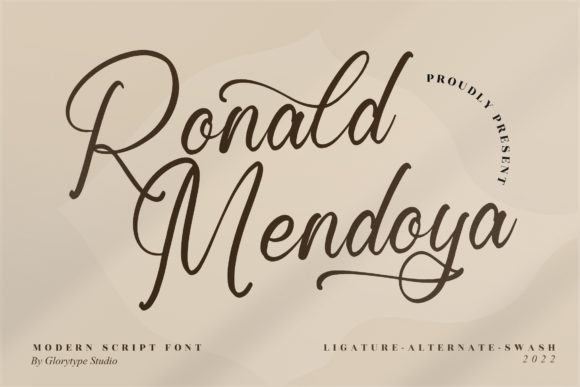
Dive into a world of enchanting artistry with the Ronald Mendoya Font, a captivating script that will transform your designs into captivating works of art. Inspired by the magic of Christmas, this font exudes a vintage charm that will transport you to a bygone era of elegance and enchantment.
With its whimsical strokes and graceful curves, the Ronald Mendoya Font dances across the page like a melody, effortlessly evoking a sense of wonder and delight. Feel the magic as you craft invitations that shimmer with festive cheer, create logos that emanate an air of timeless sophistication, or design social media posts that ignite the spirit of the season.
But the enchantment doesn't end there. The Ronald Mendoya Font is meticulously crafted with OpenType features, granting you access to a symphony of glyphs and swashes that will add an extra touch of sparkle to your creations. With its PUA encoding, unleashing these enchanting elements is as effortless as a wave of a wand.
So, embark on a creative journey with the Ronald Mendoya Font, where your designs will be imbued with the magic of Christmas and the timeless allure of vintage artistry. Prepare to be captivated by its whimsical charm and immerse yourself in a world of endless creative possibilities.